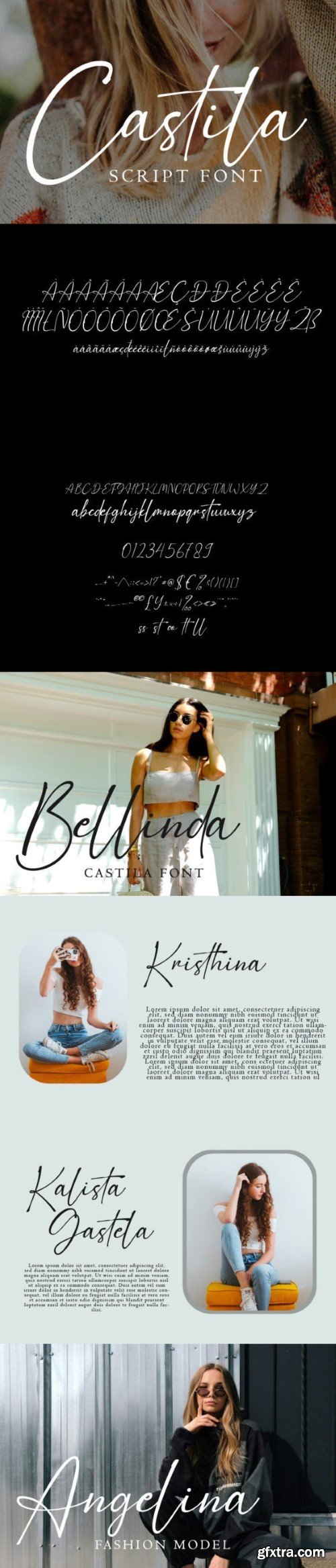
卡斯蒂亚字体
Castila is a dazzling handwritten script font that radiates elegance and charm. Its graceful curves and intricate details evoke a sense of sophistication, making it perfect for wedding invitations, branding, and other upscale designs. With its enchanting style, this font adds a touch of luxury to any project.